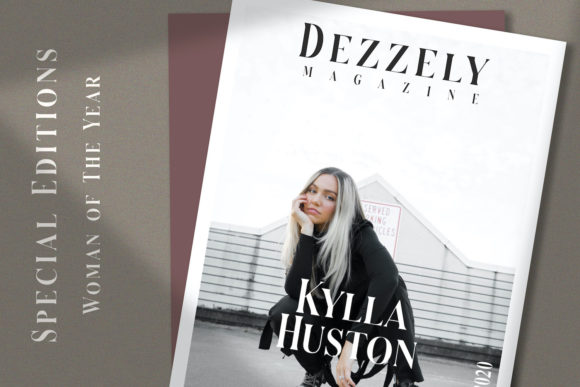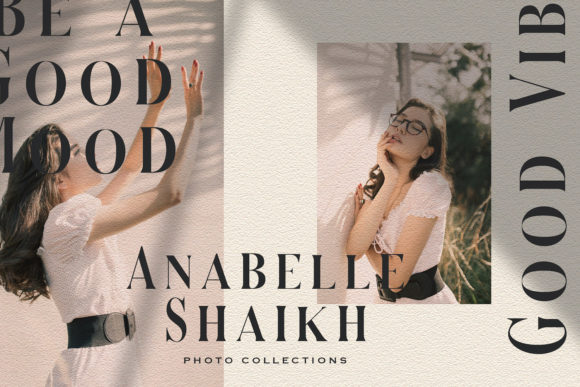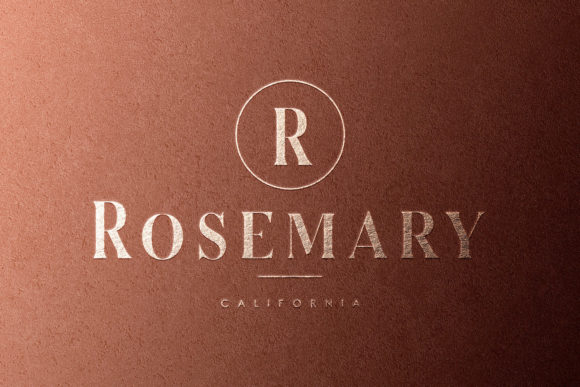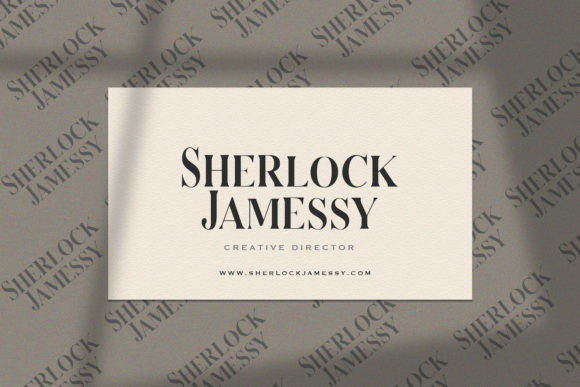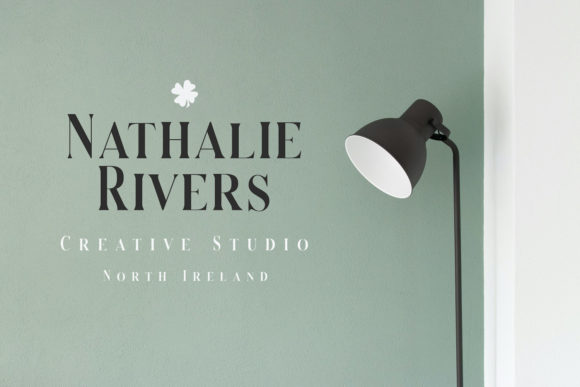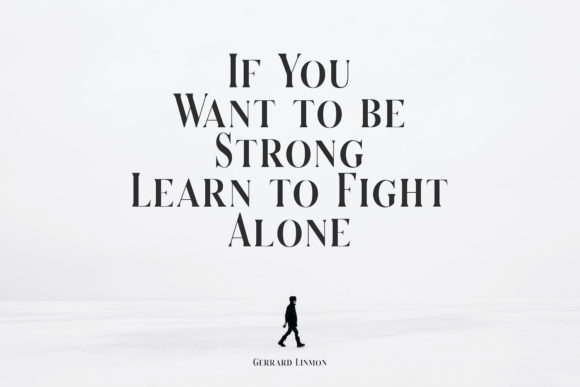
Introduction to Serizawa Font
Serizawa is an authentic and neat serif font.
Fall in love with its incredibly versatile style and use it to create gorgeous wedding invitations, beautiful stationary art, eye-catching social media posts, and much more This font is PUA encoded which means you can access all of the glyphs and swashes with ease.